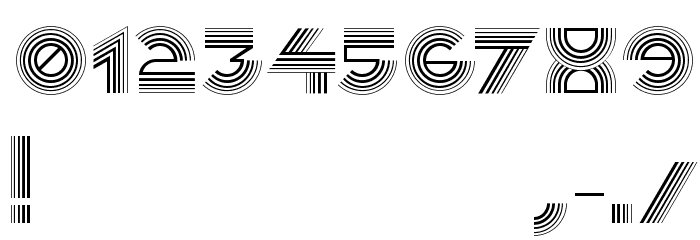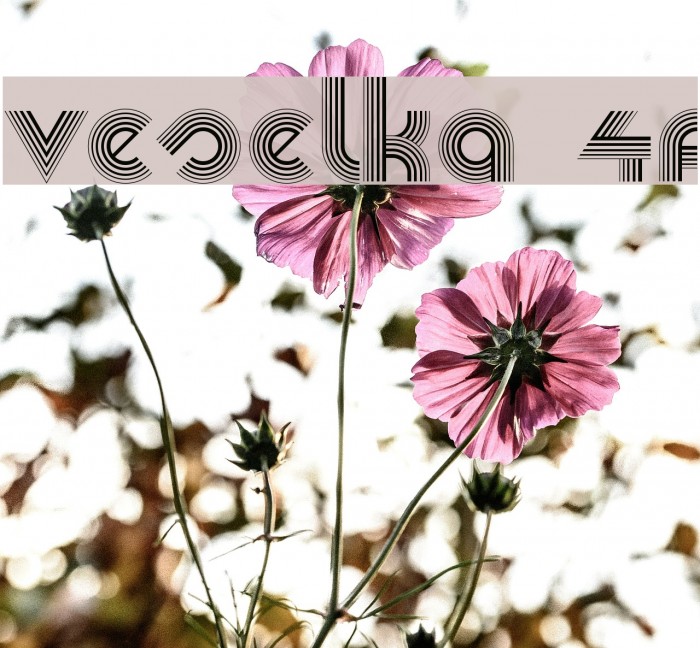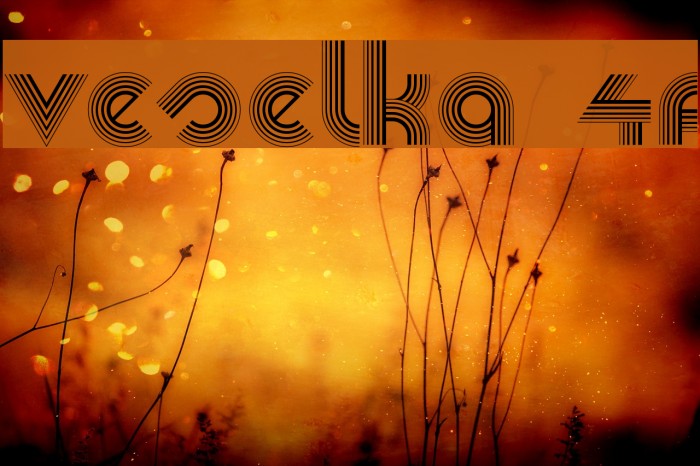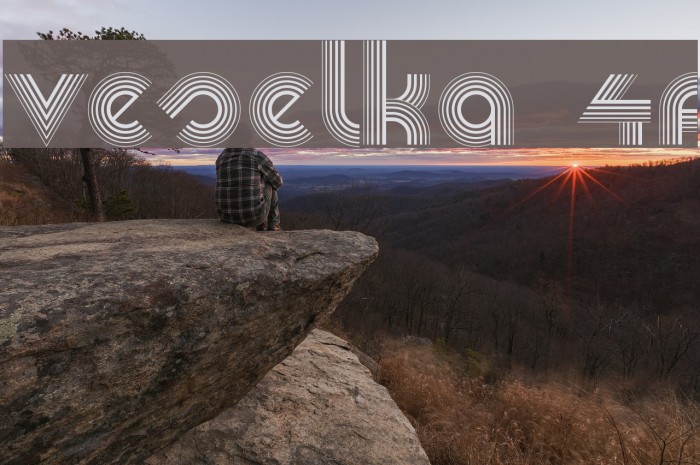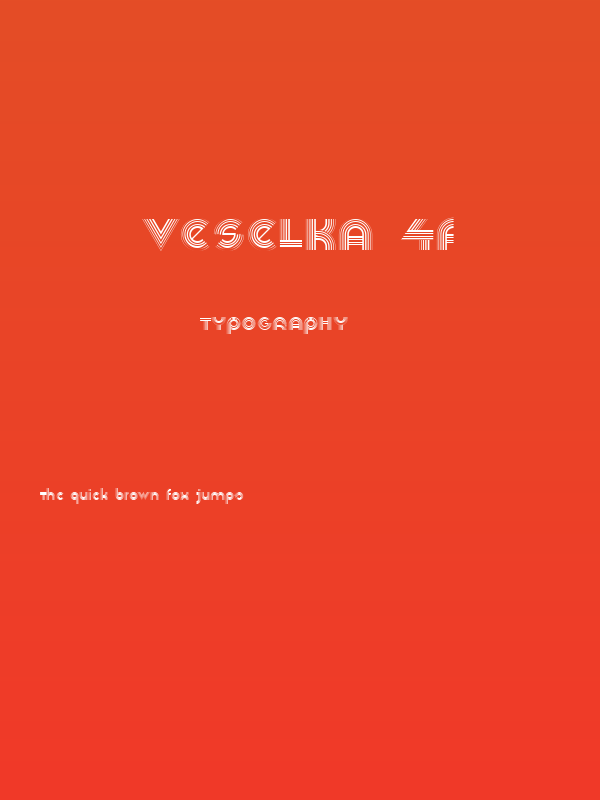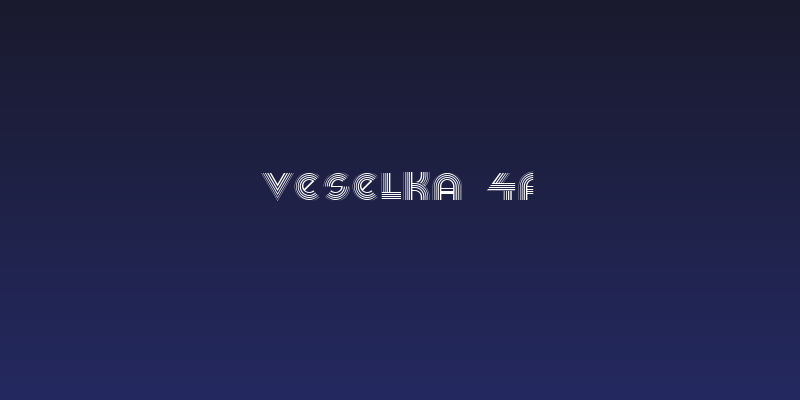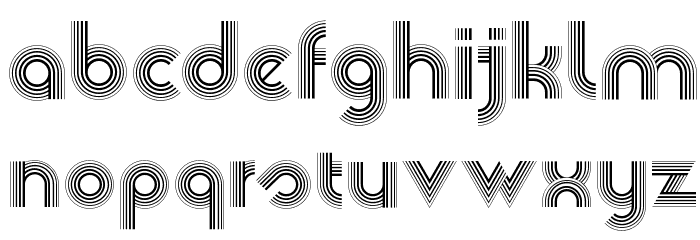
Veselka 4F Font
Veselka 4F Description
This font features a unique and modern design characterized by multiple parallel lines forming each character. The geometric structure gives it a futuristic and dynamic appearance, making it stand out with its intricate detailing. The uppercase and lowercase letters maintain a consistent style, with rounded edges and a sense of movement. The numbers and special characters follow the same design principles, ensuring uniformity across the typeface. This font is ideal for projects that require a bold and eye-catching aesthetic.
| Proposed Projects | Ideal for branding, posters, album covers, and any design project that requires a striking and contemporary look. |